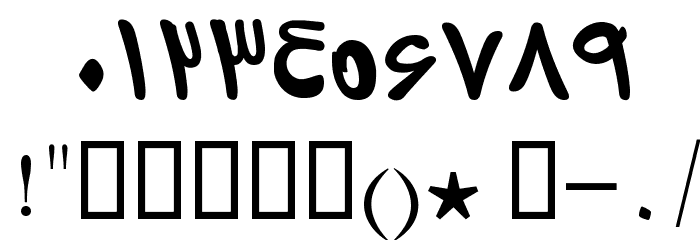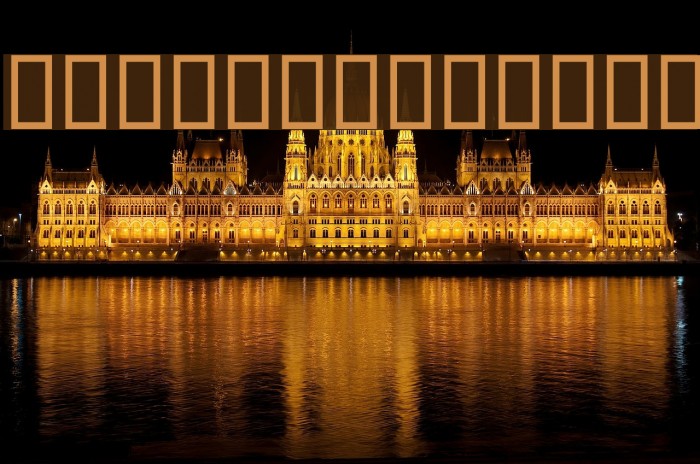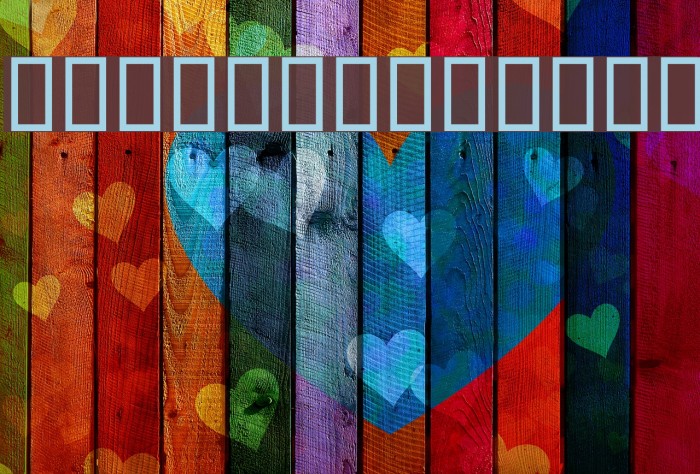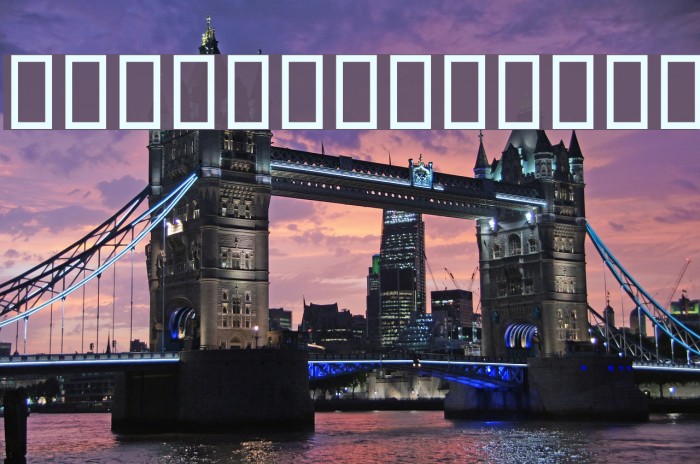
Destkhat Shang I Font
This font features a unique and artistic style, characterized by its flowing and cursive-like strokes. The letters are crafted with a sense of elegance and fluidity, making them appear almost handwritten. The characters have a distinct flair, with some strokes extending beyond the typical boundaries, adding a touch of creativity and individuality. The numbers and special characters maintain this artistic approach, ensuring consistency throughout the font. This style is particularly suitable for projects that require a personal and artistic touch, such as invitations, greeting cards, or artistic posters.
An artistic and flowing font with a cursive-like, handwritten style.
- Proposed Projects: Ideal for invitations, greeting cards, artistic posters, and any project requiring a personal touch.
- Overall Style: Artistic
- Use Case: Logos, Artistic projects, Invitations